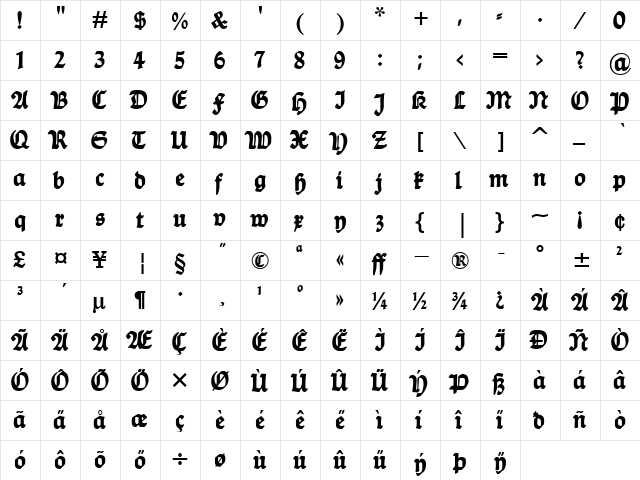
Ballade UNZ1 Alt Bold
| Designer | Dieter Steffmann |
Design Context for Ballade UNZ1 Alt Typeface
Ballade UNZ1 Alt takes a measured approach to typography — its balanced proportions and neutral character make it a reliable workhorse for both digital and print work. Its bold stroke weight gives it real presence on the page.